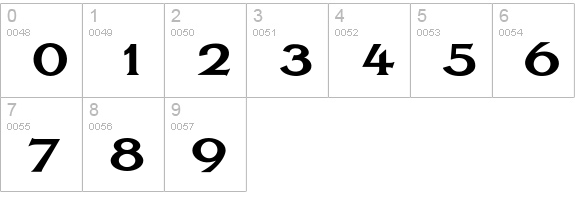
LaguneBold Font Details
Introducing LaguneBold, a stunningly bold and charismatic font that commands attention with its power and elegance. This remarkable typeface is perfect for making a bold statement, whether it's on a logo, website, or any other design project that requires a touch of sophistication. LaguneBold boasts strong, thick lines that exude confidence and authority. Its sleek and modern design effortlessly combines classic elements with a contemporary twist, making it versatile and suitable for a wide range of creative endeavors. Whether you're crafting a captivating headline, designing a captivating poster, or creating eye-catching social media graphics, LaguneBold will elevate your work to new heights. What sets LaguneBold apart is not only its striking aesthetics but also its versatility. This font seamlessly adapts to various design styles, allowing for endless possibilities and creative freedom. Its bold, unapologetic nature makes it an ideal choice for brands looking to make a lasting impression or individuals striving to stand out from the crowd. The best part? LaguneBold is available for free download exclusively at FontsMarket.com. Yes, you read that right - free! Now you can effortlessly add this remarkable font to your design arsenal without breaking the bank. FontsMarket.com offers a wide array of high-quality fonts, and LaguneBold is no exception. With just a few clicks, you can bring your designs to life and make a lasting impact. In conclusion, LaguneBold is a visually captivating font that combines power, elegance, and versatility. Its bold and commanding presence ensures that your message will be heard loud and clear. And with its availability as a free download on FontsMarket.com, there's no reason not to give your designs the touch of sophistication they deserve. Upgrade your creative projects with LaguneBold and let your imagination run wild.